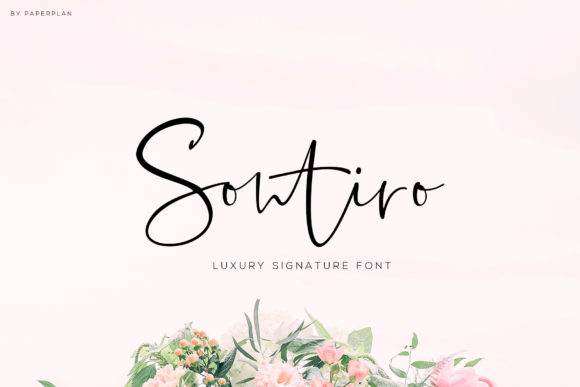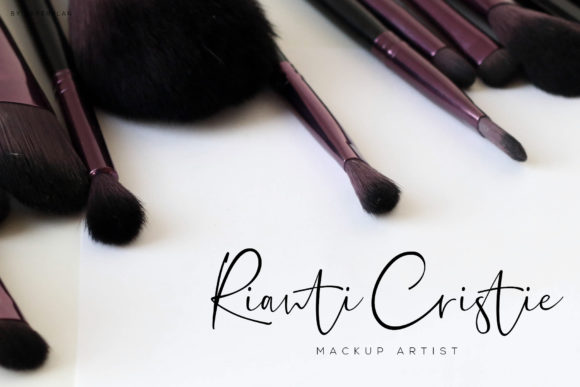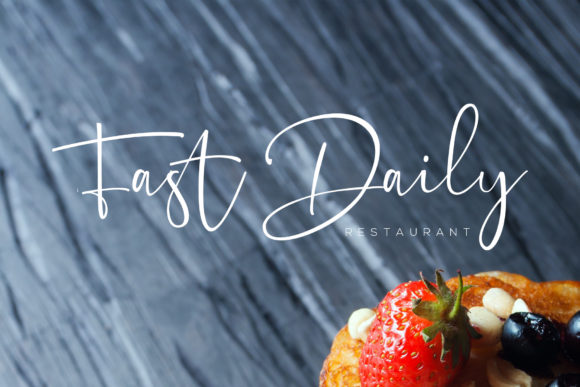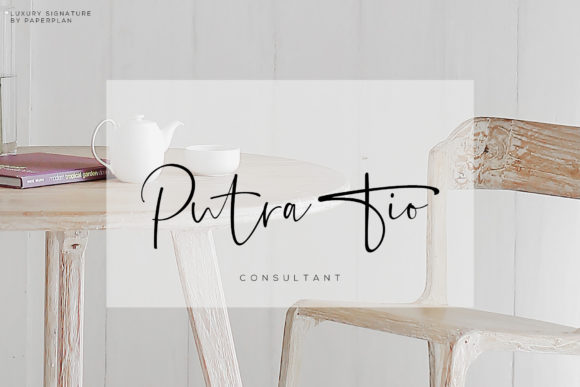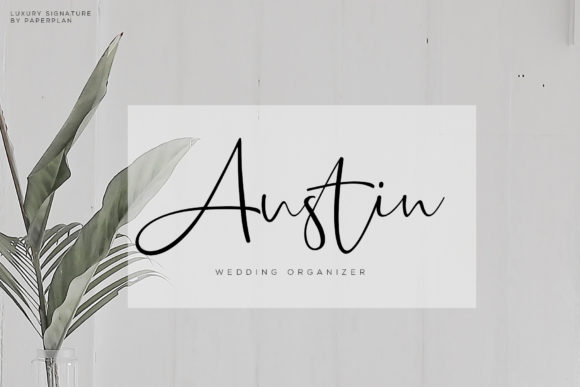
Sontiro Font
About Sontiro Font
The Sontiro is an amazing signature typeface. It has a smooth hand-drawn texture and is perfect for all types of printing techniques, embroidery, screen printing, gold foil, wedding invitation, and much more!